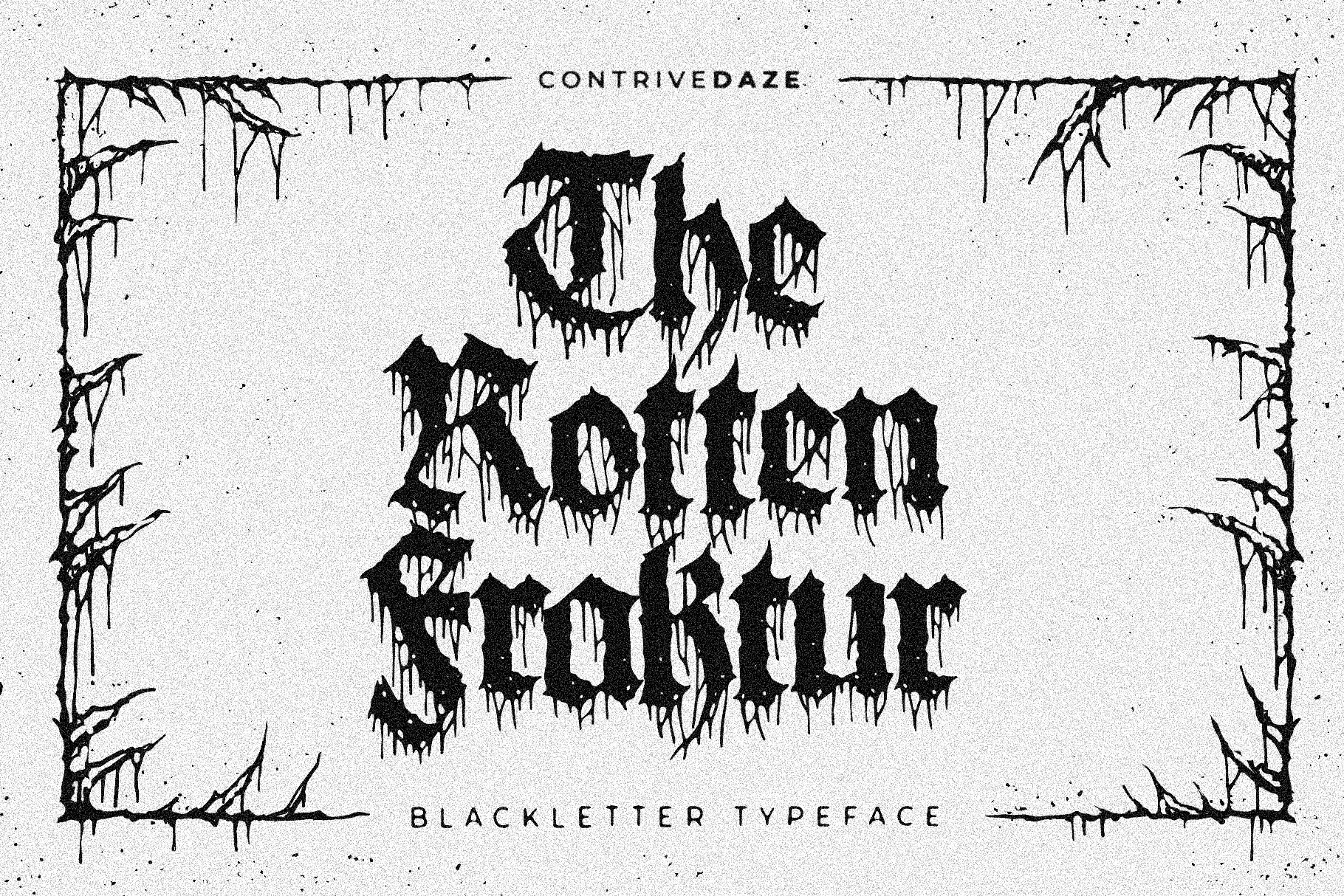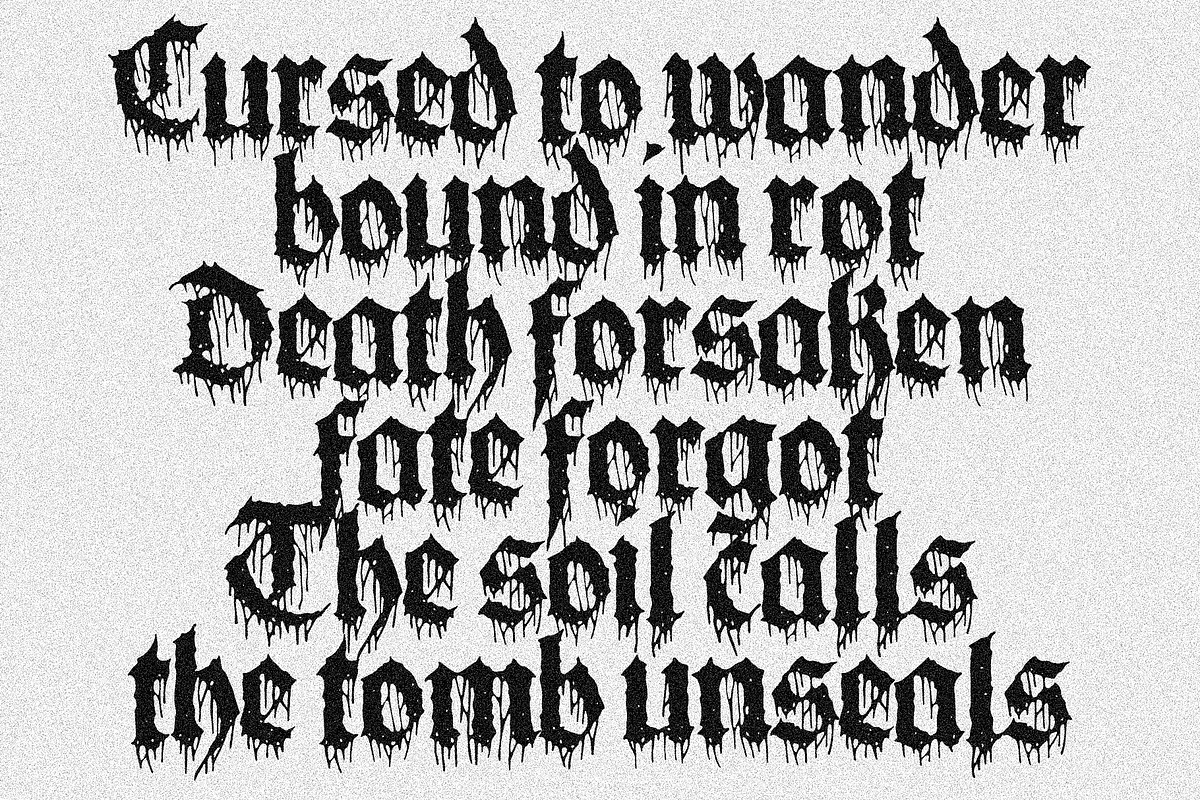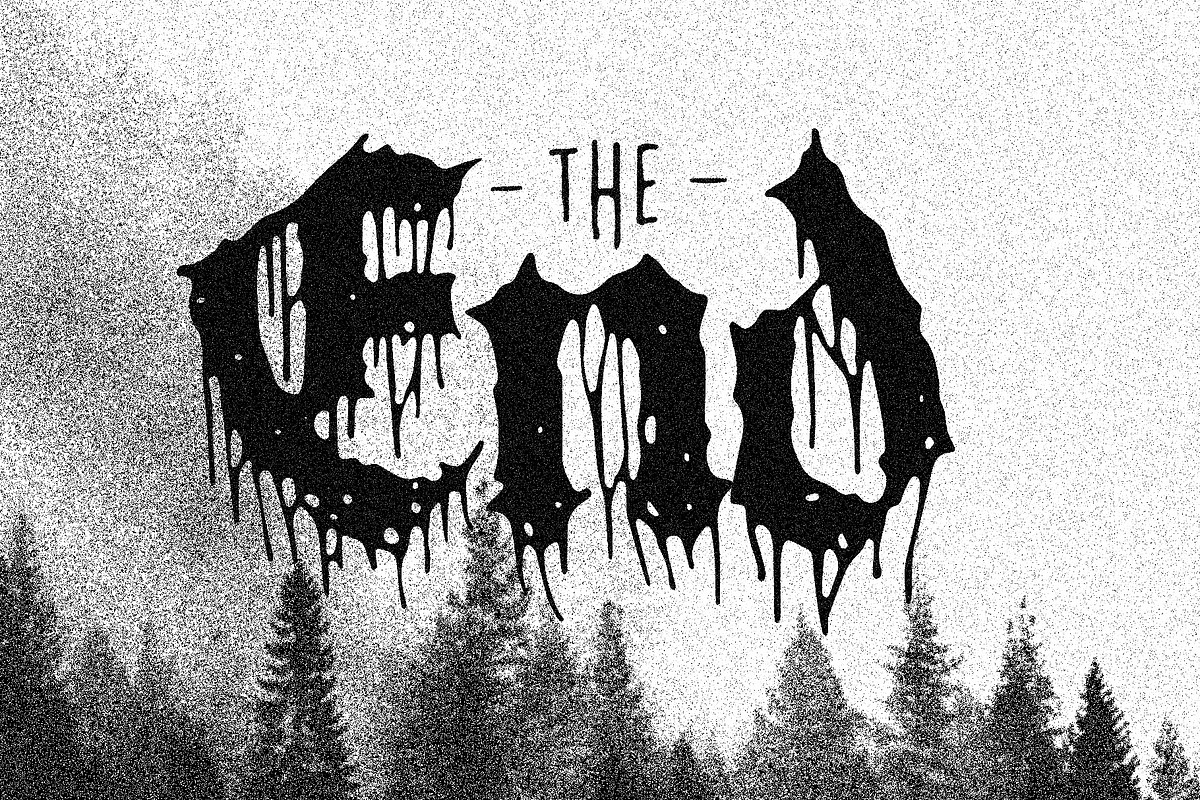
THE ROT FRAKTUR BLACKLETTER TYPEFACE
Step into the dark with The Rot Fraktur, a bold gothic typeface with a raw, vintage edge! Inspired by medieval typography, this font combines sharp strokes, distressed textures, and an eerie aesthetic, making it perfect for designs that demand a mysterious and powerful presence.